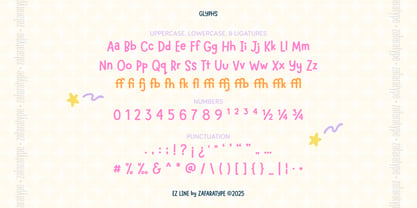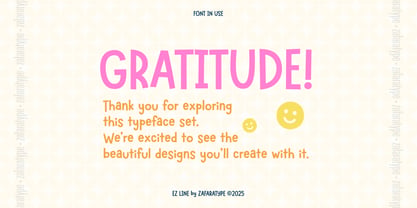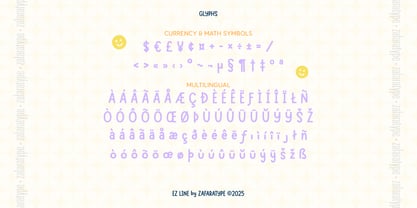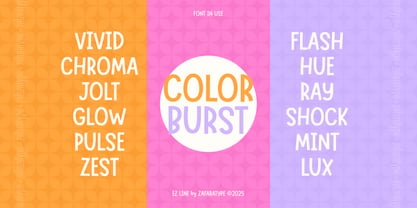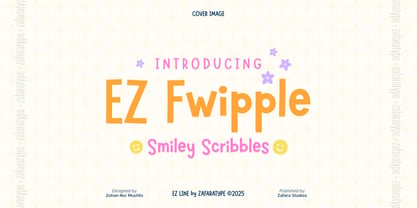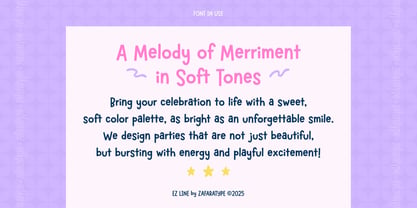
EZ Fwipple
by Zafara Studios
The EZ Fwipple Font Family was designed by Zohan Nur Muchlis and published by Zafara Studios. EZ Fwipple contains 1 styles. More about this family
EZ Fwipple is a cheerful and quirky display font filled with friendly shapes and playful personality. Each letter is drawn with bold, bouncy strokes that feel spontaneous but still tidy, giving your designs an expressive and joyful look. Its doodle-like forms bring the charm of casual scribbles to life. The style feels energetic, happy, and imaginative, perfect for designs that need a bright and uplifting mood. Use it for children’s books, packaging, posters, logos, quotes, stickers, social media graphics, and any project that calls for a fun and delighted visual tone. Wherever you want to add positivity, character, and a spark of childlike joy, EZ Fwipple fits beautifully. The details: 256 glyphs: Uppercase and lowercase, Numbers and punctuation, Symbols and accents, Multilingual support 25 languages: Afrikaans, Albanian, Basque, Catalan, Danish, Dutch, English, Estonian, Faroese, Filipino, Finnish, French, Galician, German, Icelandic, Indonesian, Irish, Italian, Malay, Norwegian Bokmål, Portuguese, Spanish, Swahili, Swedish, Zulu
Designers: Zohan Nur Muchlis
Foundry: Zafara Studios
About Zafara Studios
Zafaratype is an Indonesian type foundry dedicated to creating serif and sans serif fonts that balance modern design with timeless character. Our journey began in 2023 under the name Zafara Studios, with early works in script and handwritten styles. Over time, our focus evolved, and we have since grown into a foundry specializing in versatile and contemporary typefaces. Today, Zafaratype stands as our main foundry, while Zafara Studios continues to serve as its publisher. Based in Blitar City, Indonesia, we design fonts for designers, typographers, and font enthusiasts worldwide, with a mission to create typefaces that are not only functional but also possess a strong, lasting appeal.